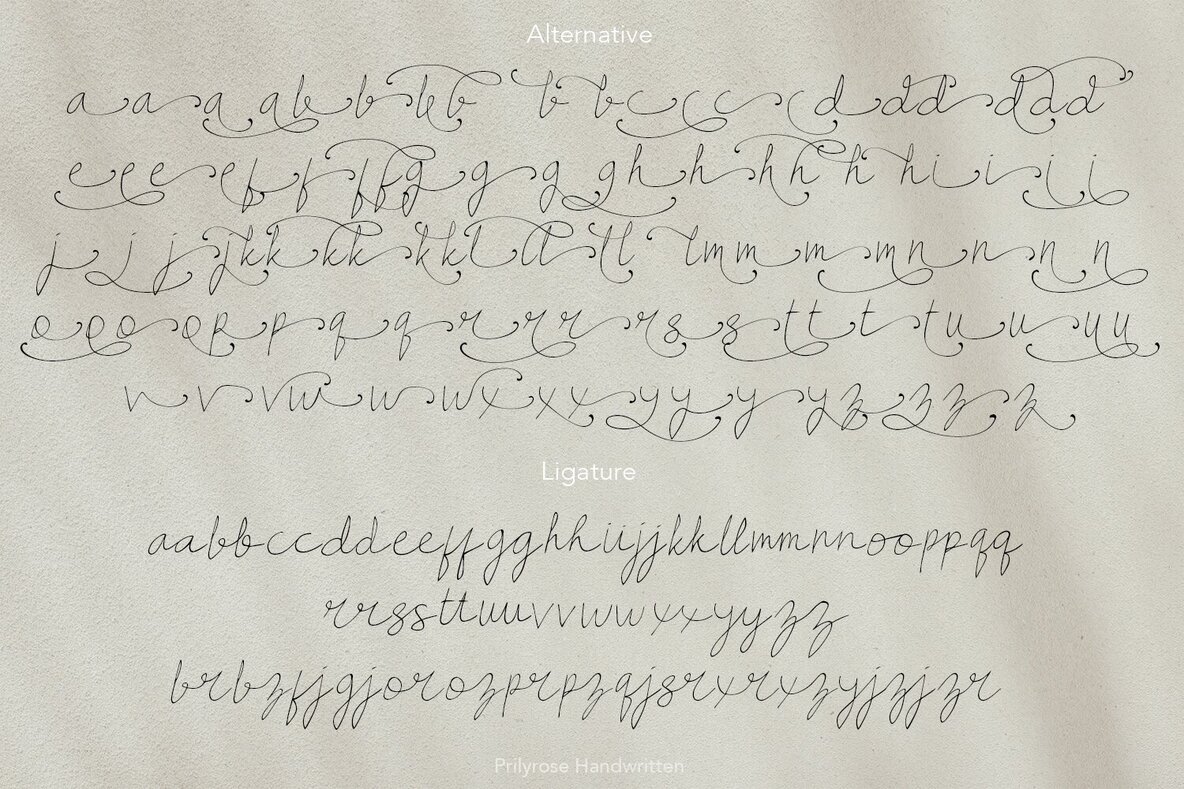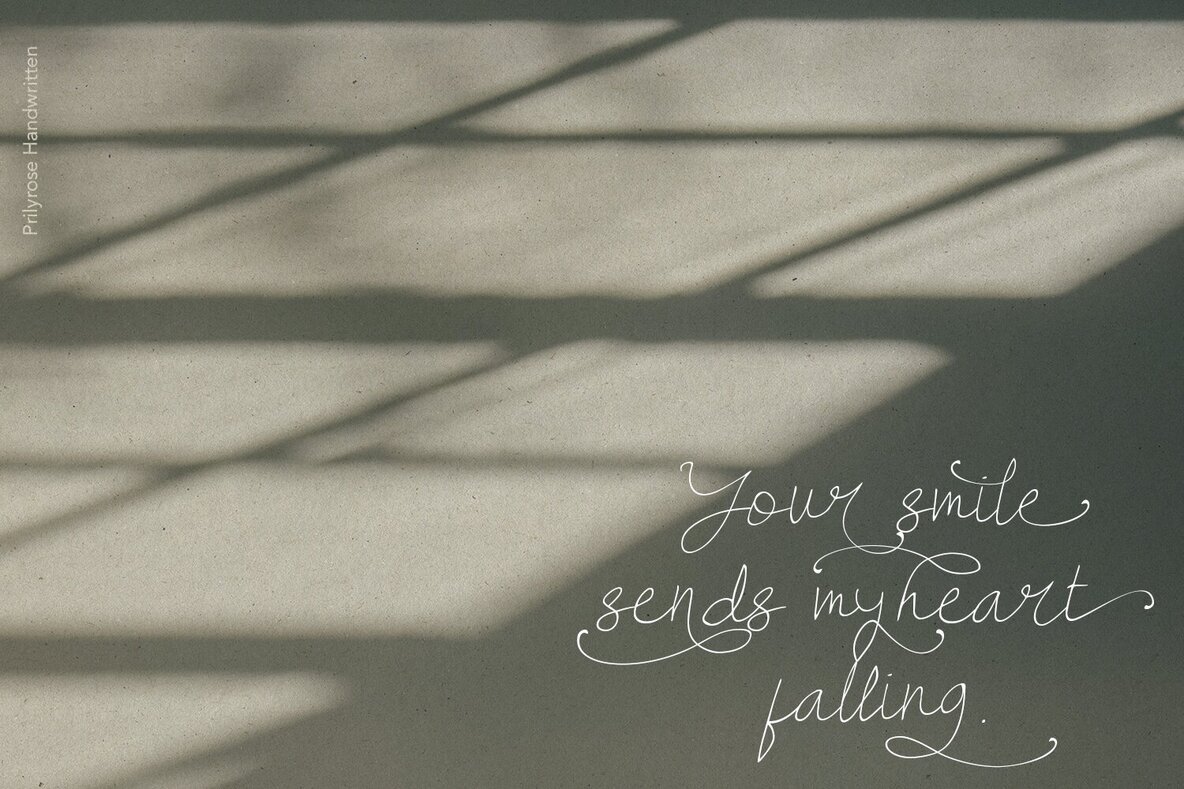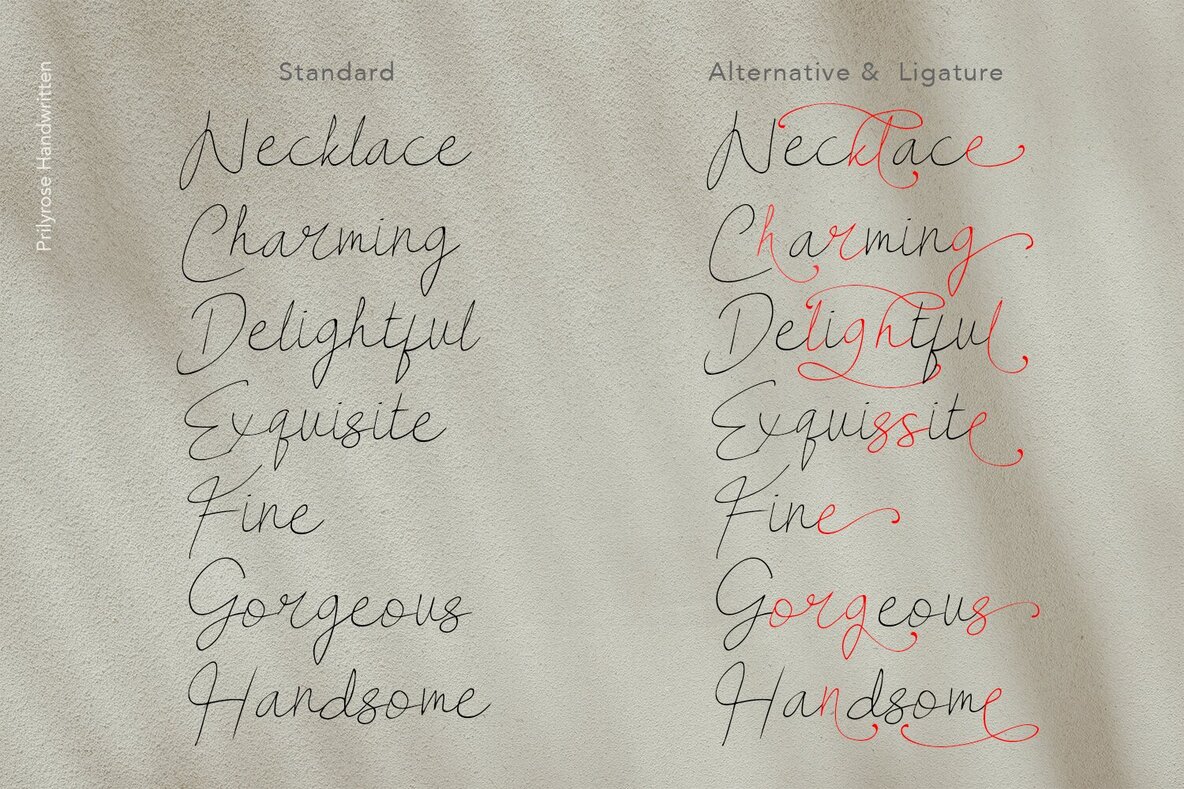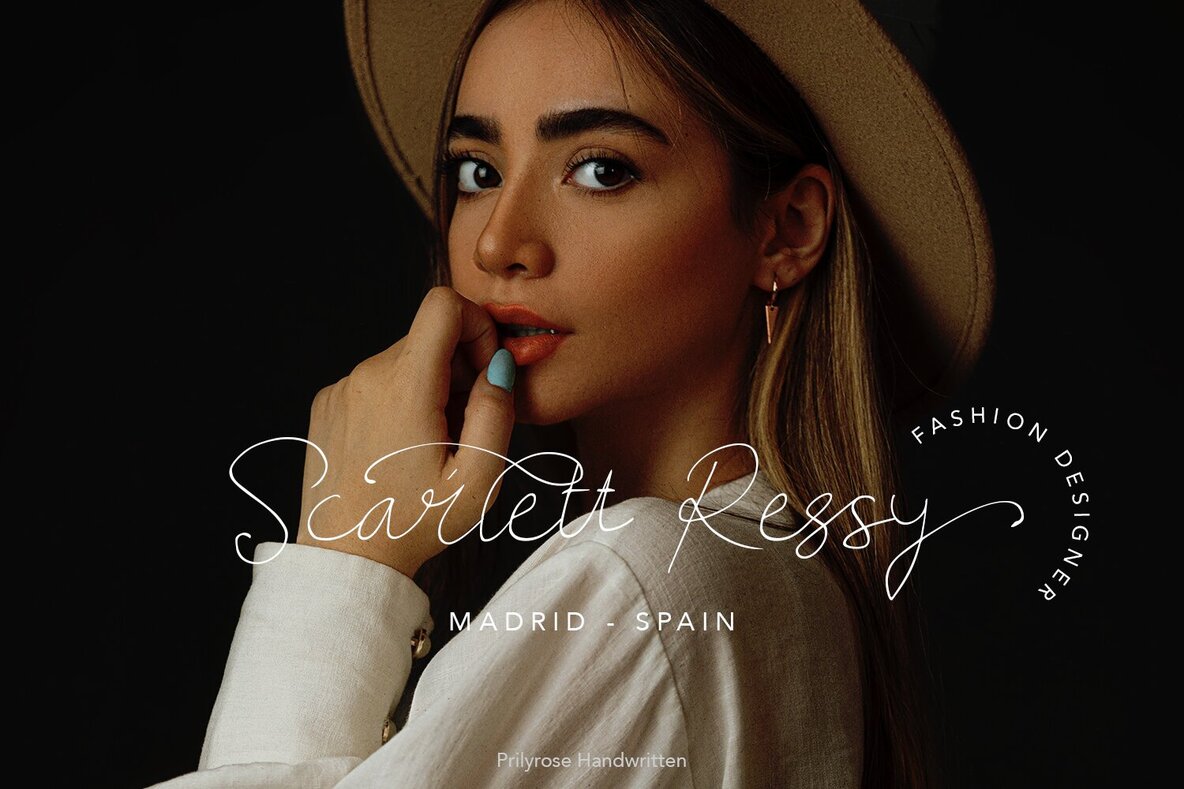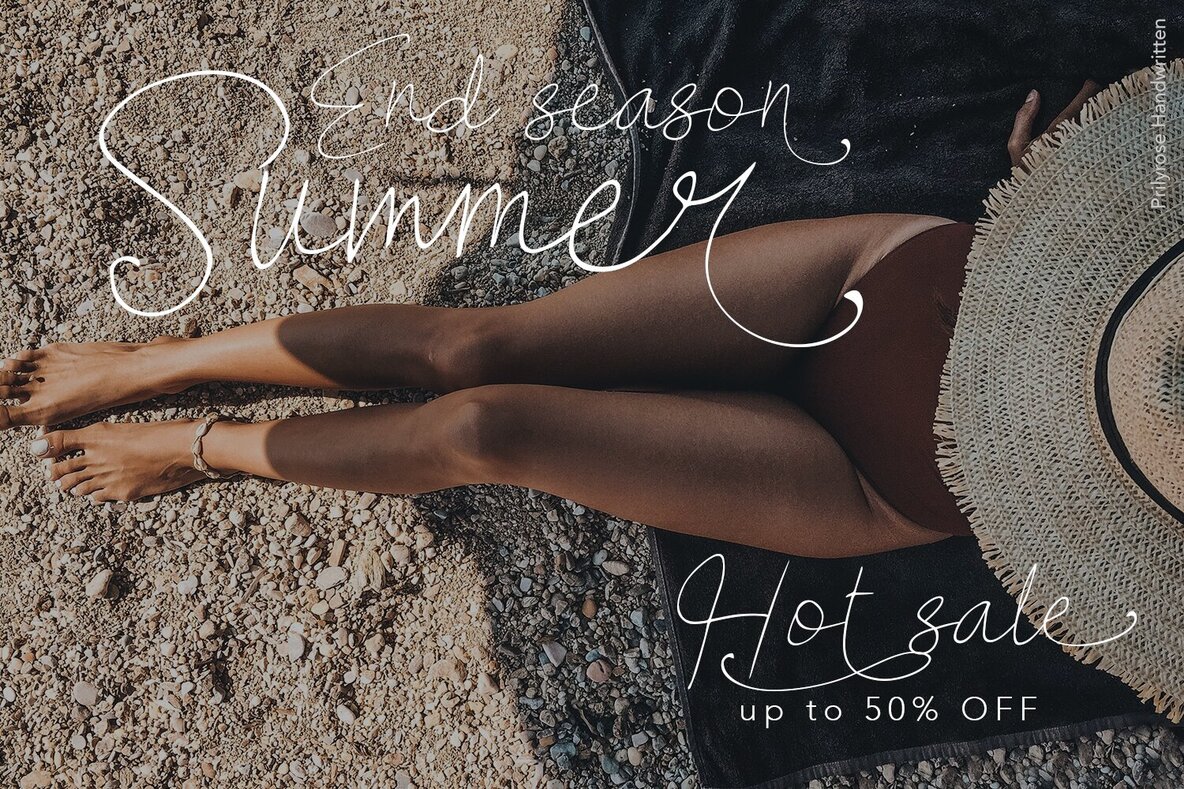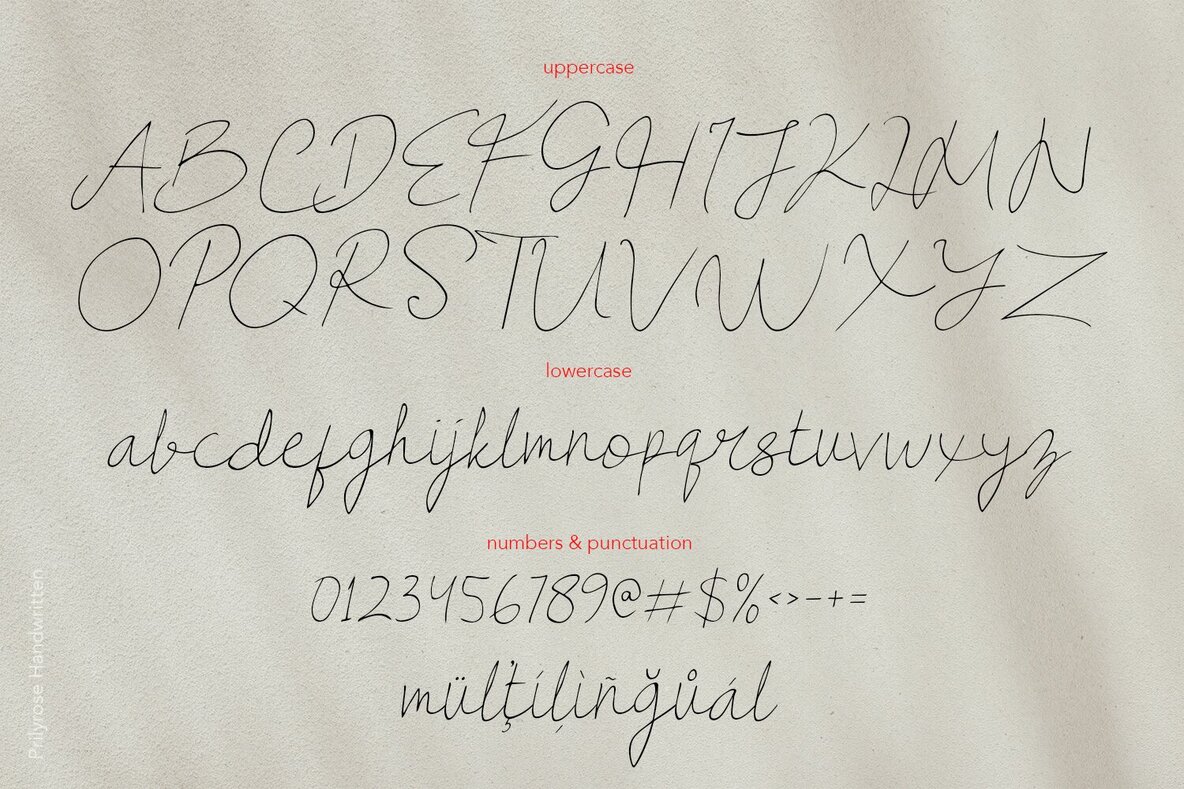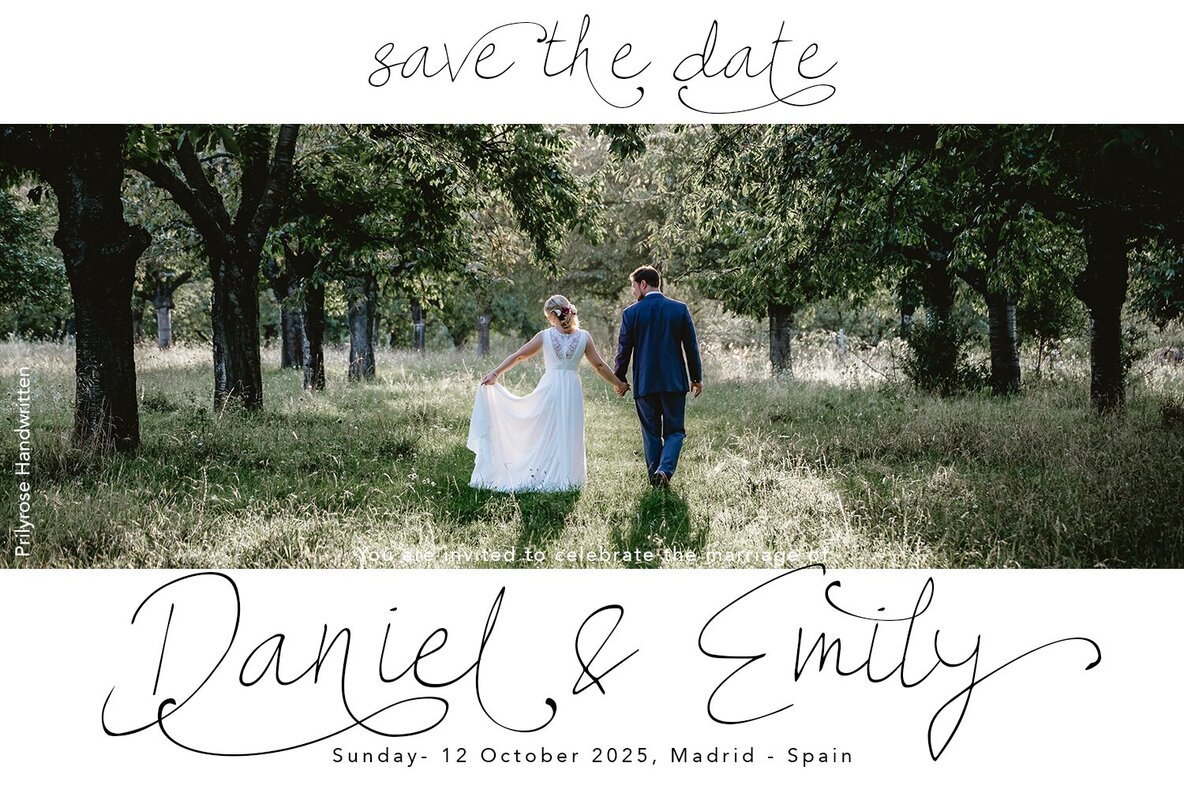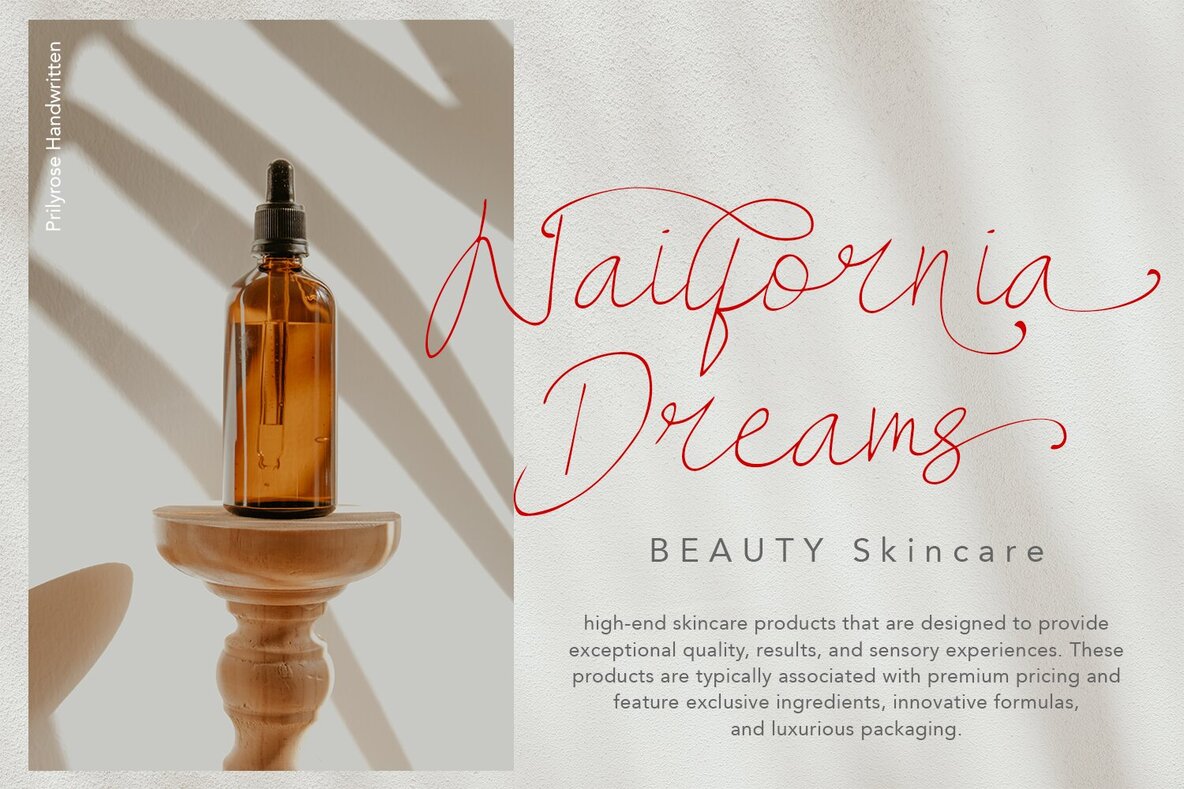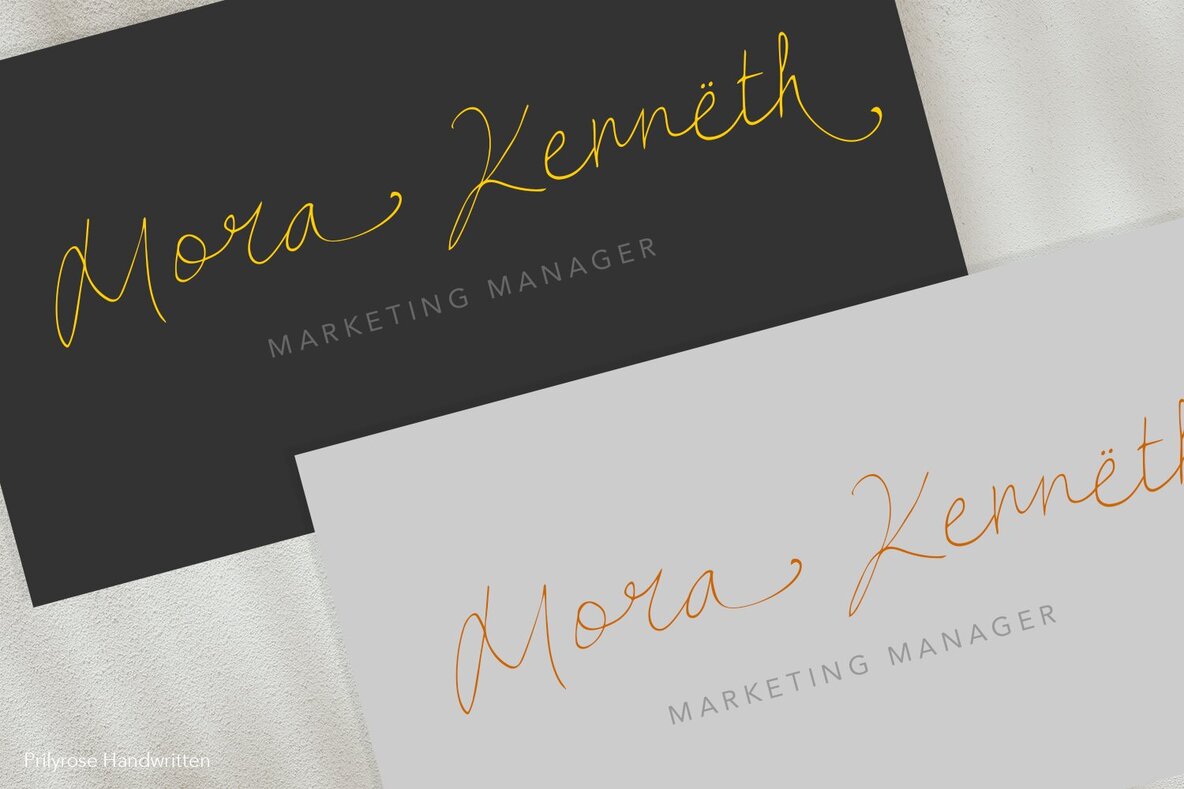
Prilyrose Font
Prilyrose Regular
Prilyrose is a flowing handwritten font described by an elegant touch perfect for your favorite projects. Fall in love with its incredibly distinct and timeless style and use it to create spectacular designs! Prilyrose handwritten includes alternative and ligatures to make everything look natural handmade handwritten.